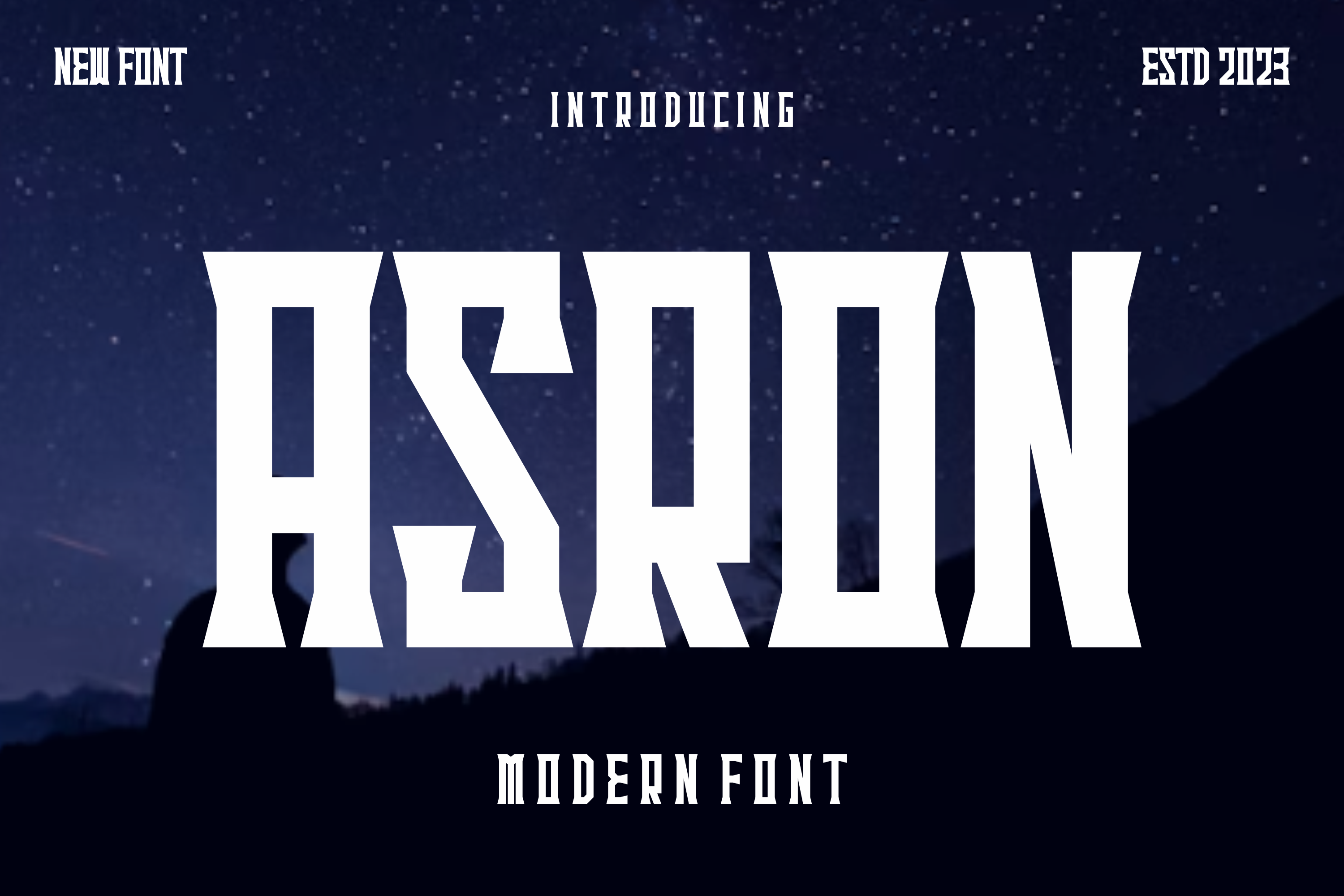
Asron - Modern Logo Font
Asron - Modern Logo Font Perfectly suited on print/screen. it’s perfect for Branding, name card, poster, logo, magazine, cover, banner, t-shirt and headers, or even large-scale artwork.